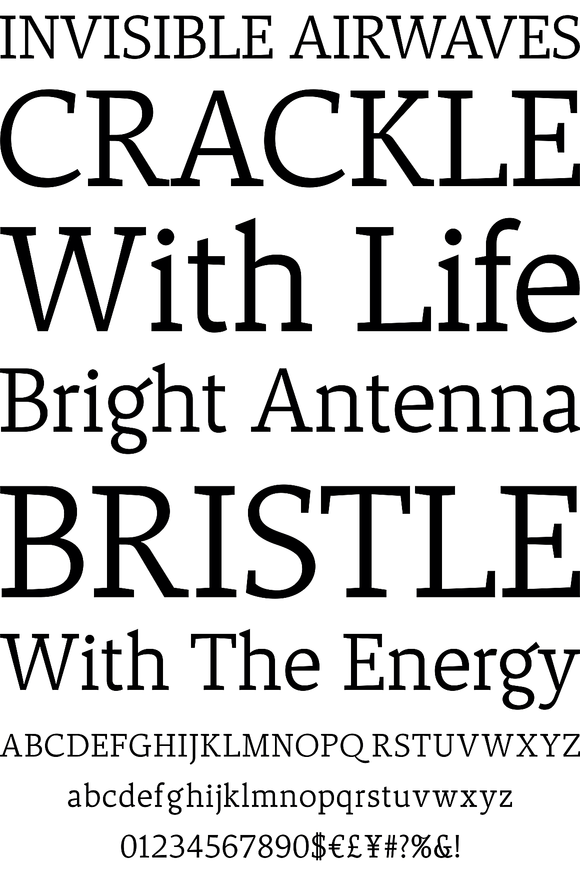
Foundry: Suomi Type Foundry
Tow is a modern, unique and playful serif designed by Tomi Haaparanta of Suomi Type Foundry. It contains 4 styles, 2 of which are italic that generate a more script-like type setting.